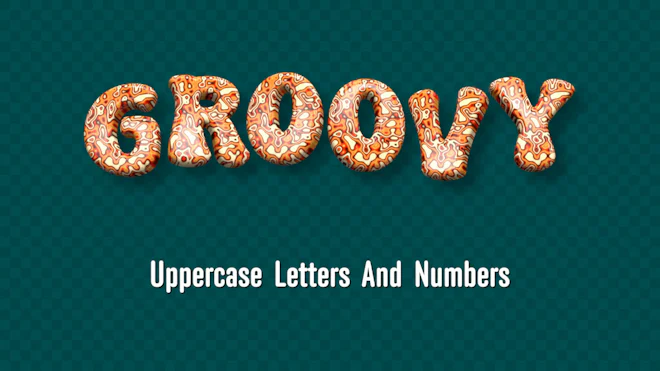
This stock motion graphics video pack includes 36 clips of retro groovy 70's uppercase letters and numbers on a transparent alpha channel in a seamless loop.